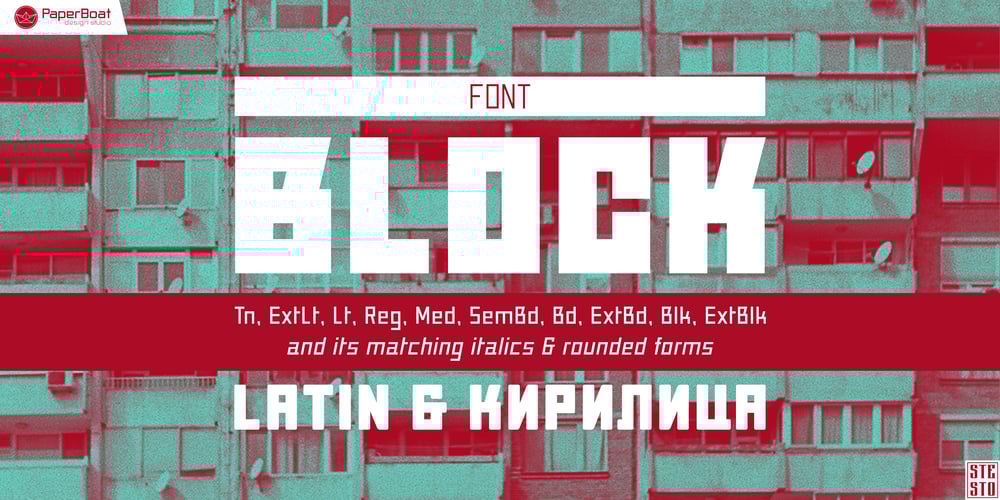
Block Font Family was designed by Stefan Stoychev and published by Stefan Stoychev. Block contains 40 styles and family package options. The BLOCK typeface was inspired by the monumental and uniform look of the apartment blocks that characterized the cityscapes of socialist Eastern Europe. These buildings, with their repeating geometric shapes and clean lines, serve as a major influence on the font’s design aesthetic. The letterforms in the BLOCK typeface are constructed primarily using geometric shapes, reflecting the angular and modular design elements found in socialist-era architecture. Each type weight maintains consistent stroke width and proportions, reflecting the standardized and mass-produced nature of the apartment blocks from which they are inspired. The BLOCK font is designed in ten weights ranging from Thin to Extra Black, offering flexibility and versatility for a variety of design applications. To soften the otherwise hard look of the font and evoke a sense of accessibility, a variant with rounded corners has been added, reminiscent of the weathered edges often seen in aged concrete structures. In addition to the standard upright weights, the BLOCK font features accompanying italic styles. These italics maintain the geometric principles of upright characters while introducing a subtle slope and fluidity to the letterforms. The letterforms are built on a modular grid system allowing for easy alignment and consistency across different weights and styles. The BLOCK font is well suited for a wide range of applications, including editorial design, branding, signage and digital interfaces. It evokes a sense of nostalgia while offering a modern interpretation of the architectural legacy of the socialist era in Eastern Europe. Whether used in print or digital media, BLOCK adds distinctive character to any design project, reflecting the visual language of the past while embracing the present.